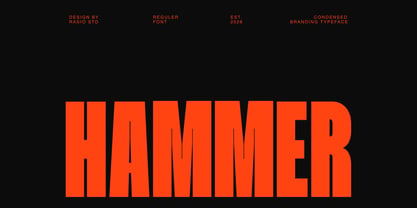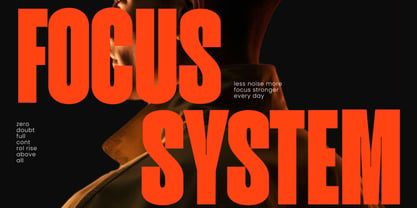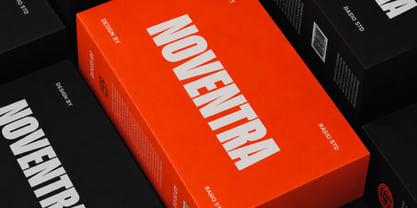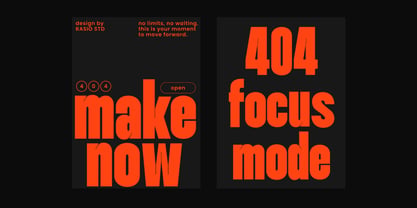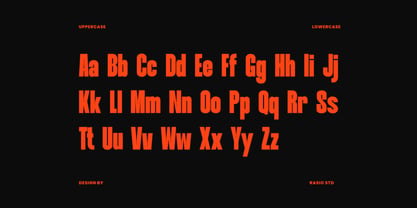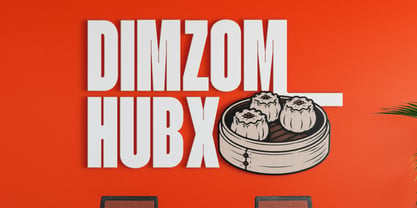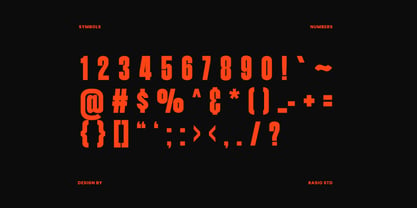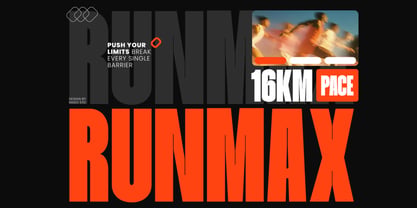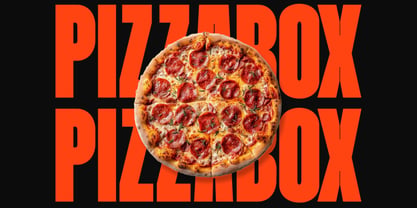
Hammer
by Rasio Studio
The Hammer Font Family was designed by Fajar Indra and published by Rasio Studio. Hammer contains 1 styles. More about this family
Hammer Condensed Branding Typeface features a tall, bold, and compact sans serif style designed for impactful visual communication. The font includes uppercase, lowercase, numerals, punctuation with strong geometric proportions and tight spacing that create an aggressive modern appearance. Its condensed structure delivers maximum readability and space efficiency, making it highly effective for headlines, posters, branding systems, sports graphics, streetwear visuals, and editorial layouts.
Relevance & Use Cases is highly relevant for projects that require bold visibility, modern energy, and space-efficient typography. Its strong condensed structure works exceptionally well for posters, sports branding, fashion campaigns, music promotions, esports graphics, automotive advertising, tech visuals, streetwear labels, social media content, editorial headlines, and commercial branding systems.
Designers: Fajar Indra
Foundry: Rasio Studio